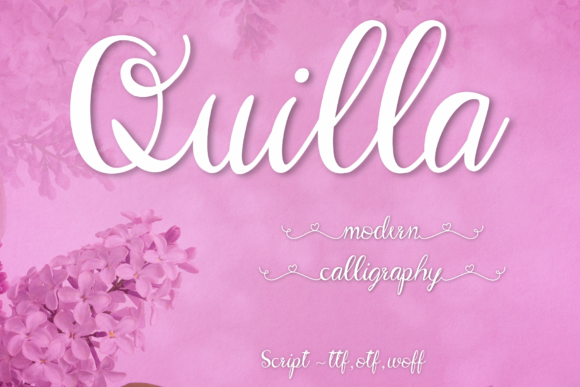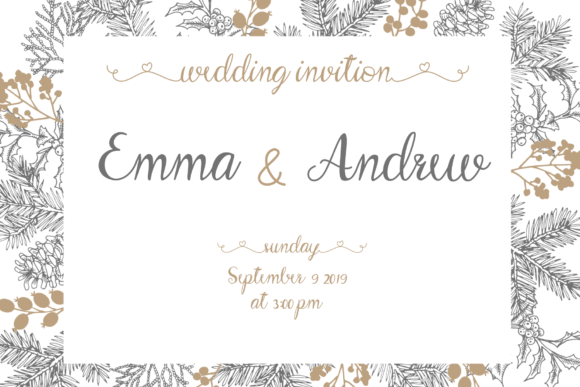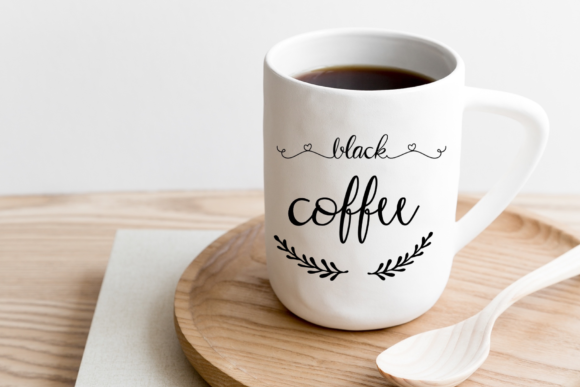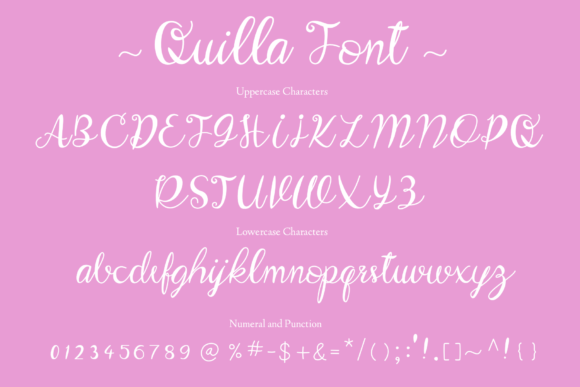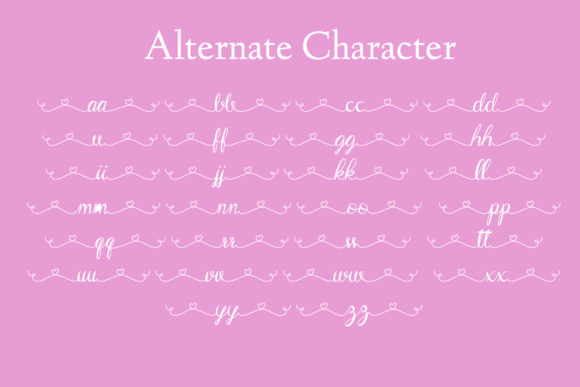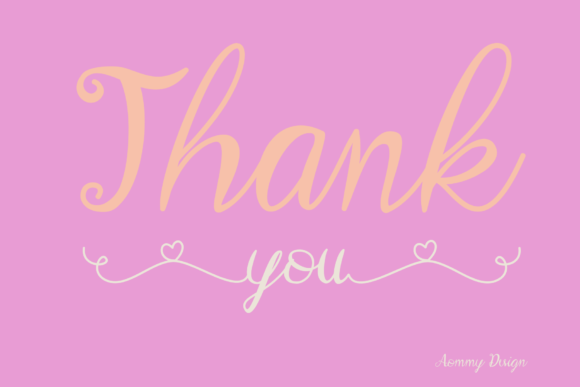
Quilla is a sweet handwritten font, created with a beautiful flow. This font is PUA encoded which means you can access all of the glyphs and swashes with ease!
Whether you’re using it for crafting, digital designing, presentations or greeting cards making, it’s perfect!